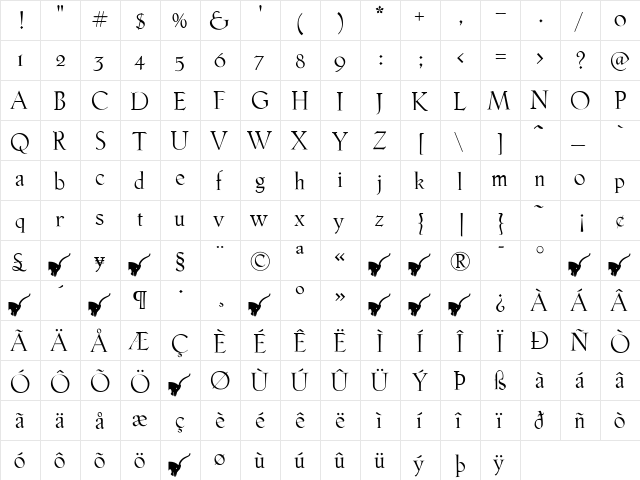
PhaistosRoman Regular
Design Context for PhaistosRoman Typeface
PhaistosRoman takes a measured approach to typography — its balanced proportions and neutral character make it a reliable workhorse for both digital and print work.